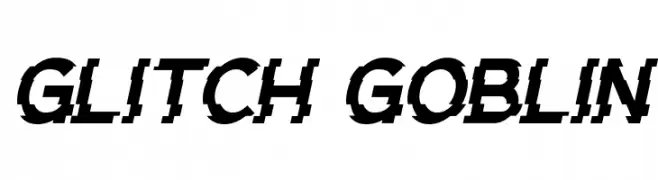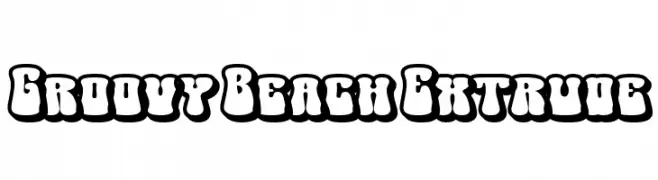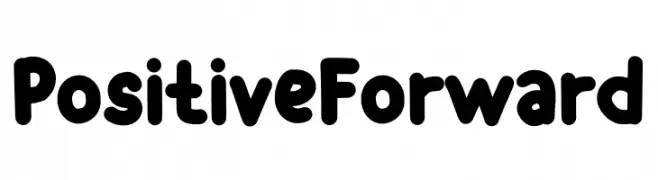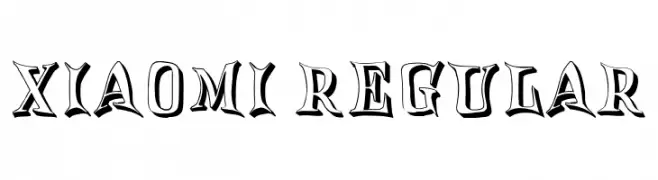
A bold, artistic font with a hand-drawn, irregular style.
A bold, playful font with rounded edges and a friendly appearance.
A decorative display font made entirely of star-shaped elements, offering a whimsical and festive look.
A bold, decorative font with blackletter influences and intricate design.
A bold, italicized font with a glitch effect, ideal for modern and edgy designs.
A bold, high-contrast serif font with pronounced serifs and tight spacing.
A bold, handwritten font with a playful and energetic style.
A playful, bold handwritten font with smooth, rounded strokes.
A bold, playful font with a retro, extruded style and tight character spacing.
A bold, playful font with rounded edges and a retro vibe.